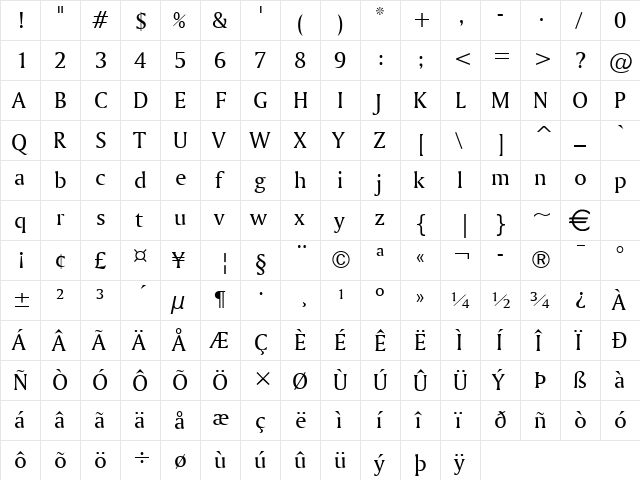
Ameretto Normal
Design Context for Ameretto Typeface
Ameretto takes a measured approach to typography — its balanced proportions and neutral character make it a reliable workhorse for both digital and print work.